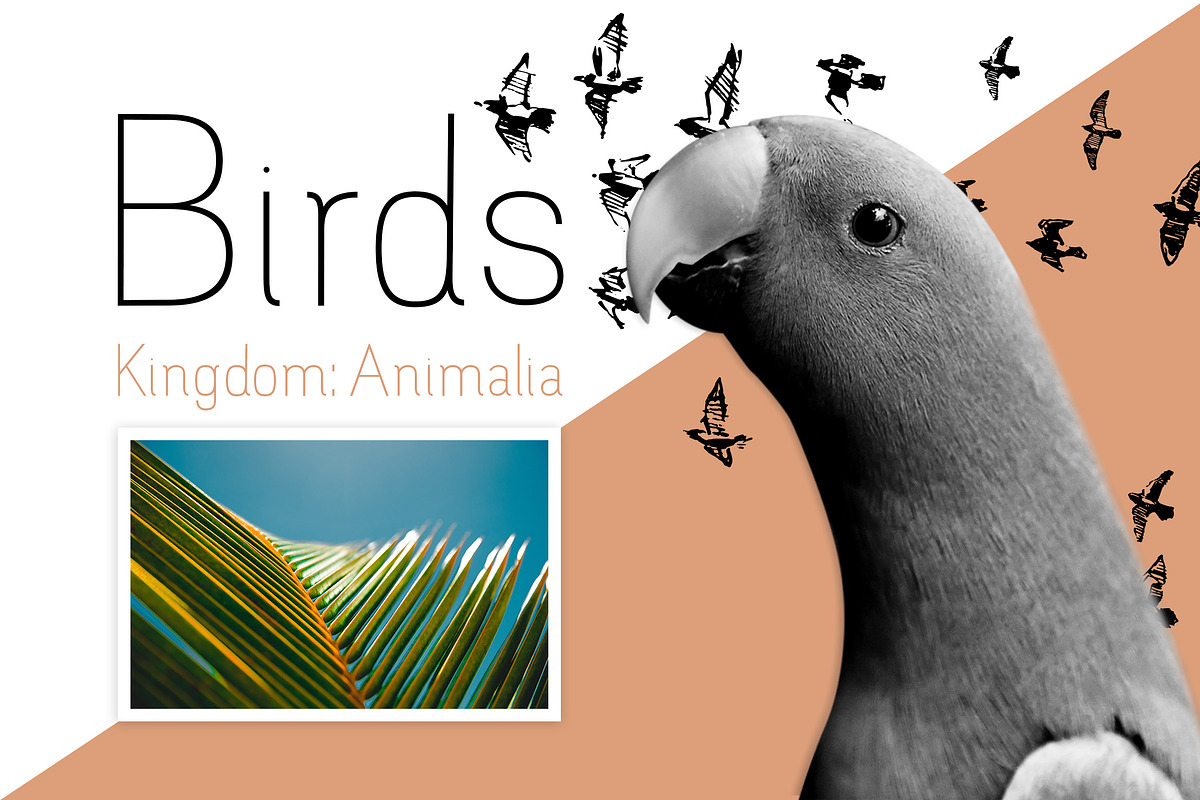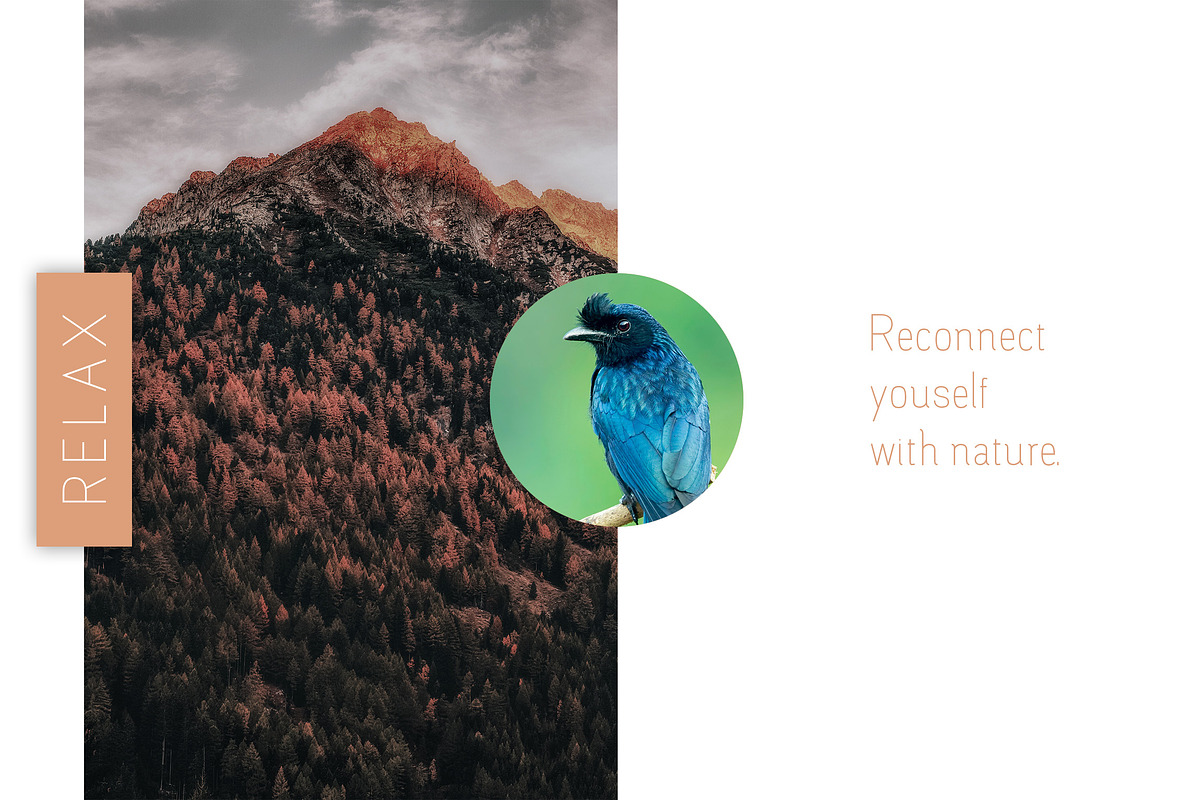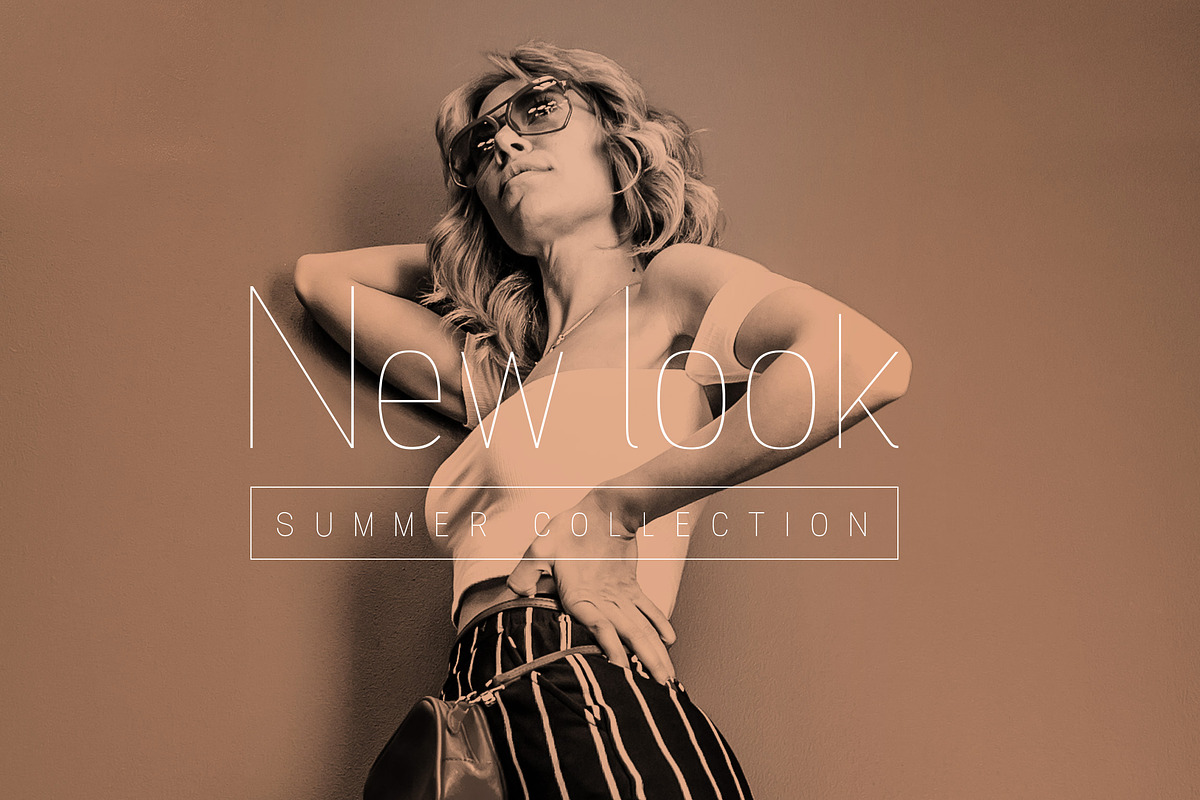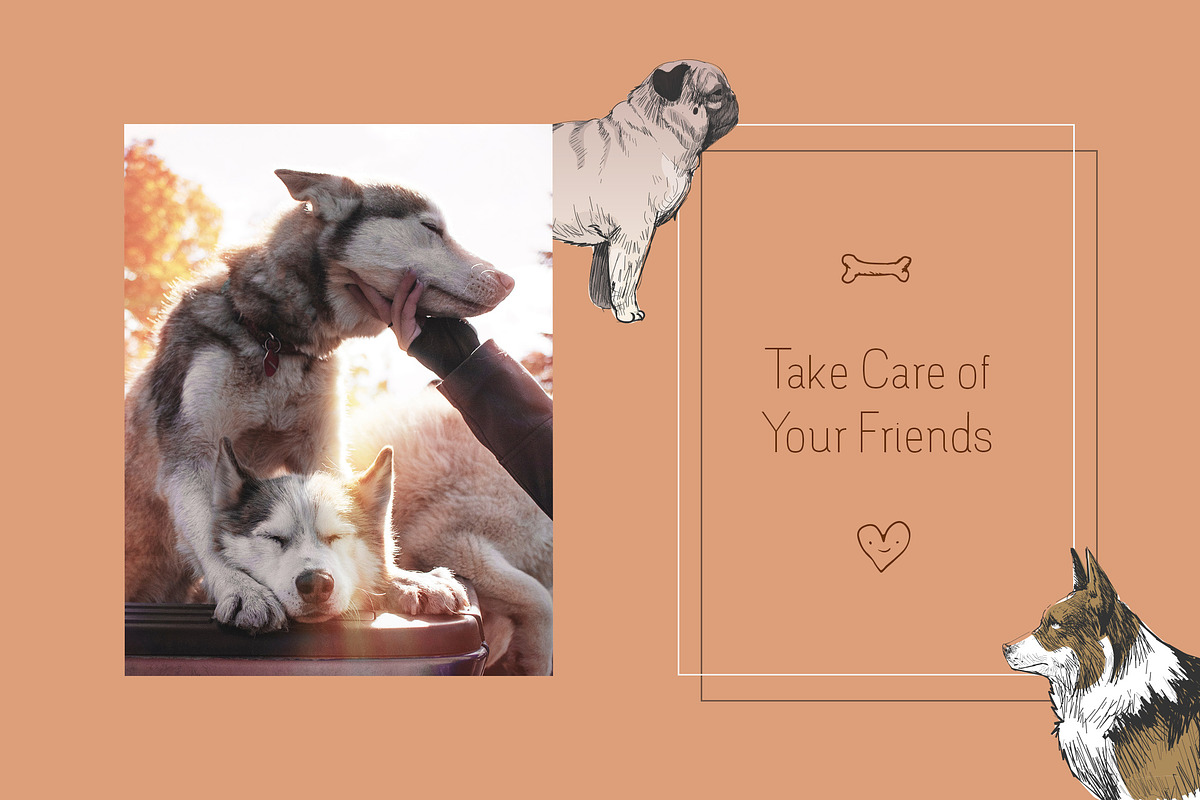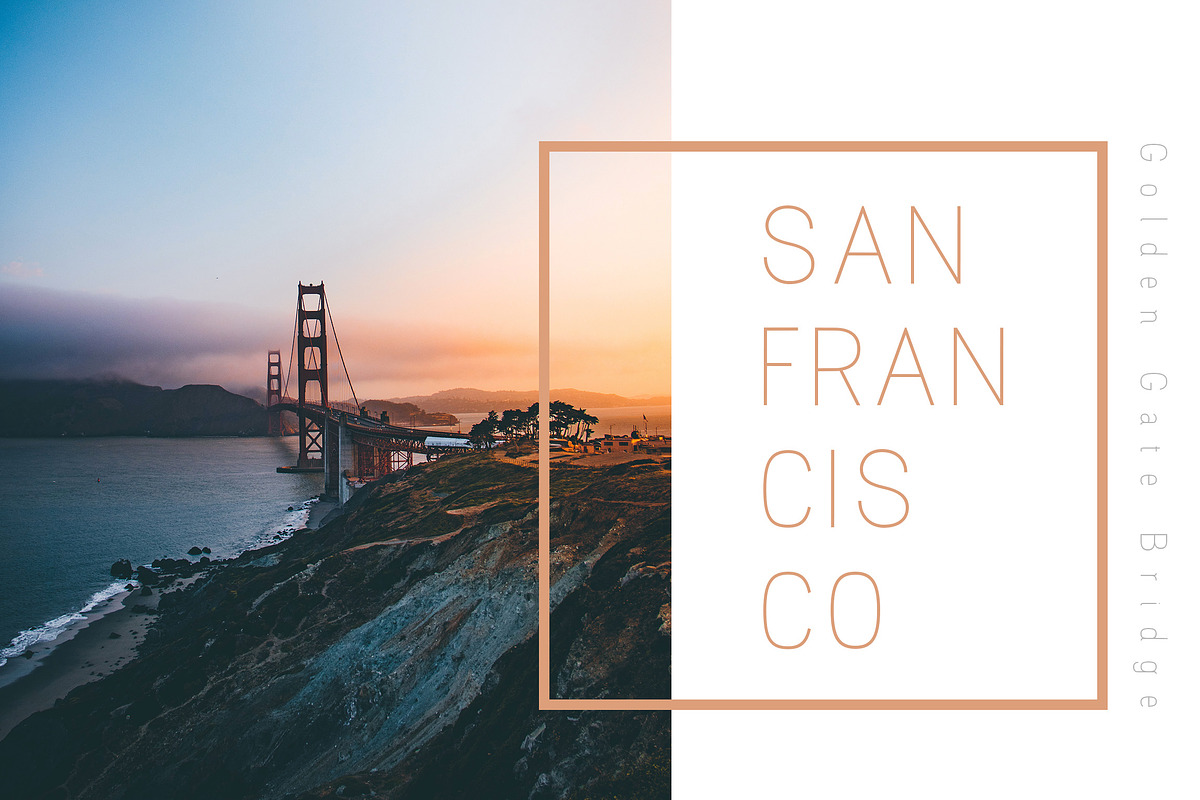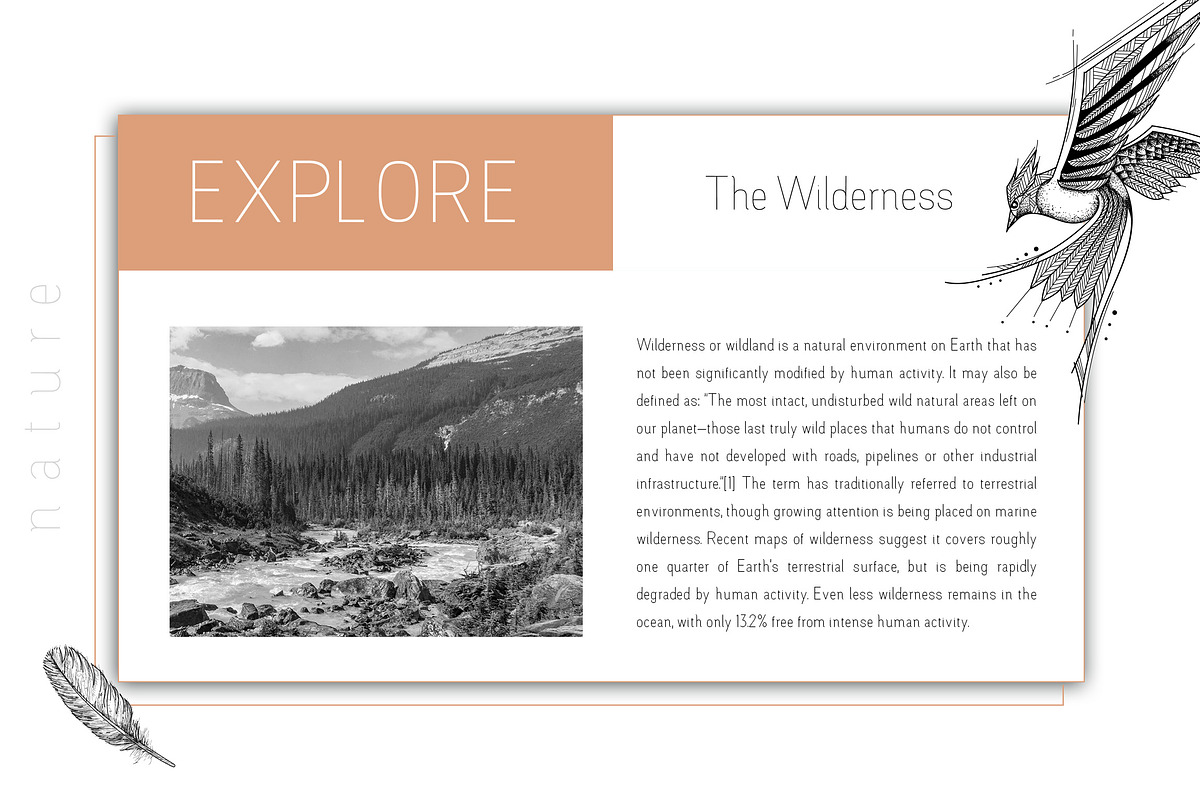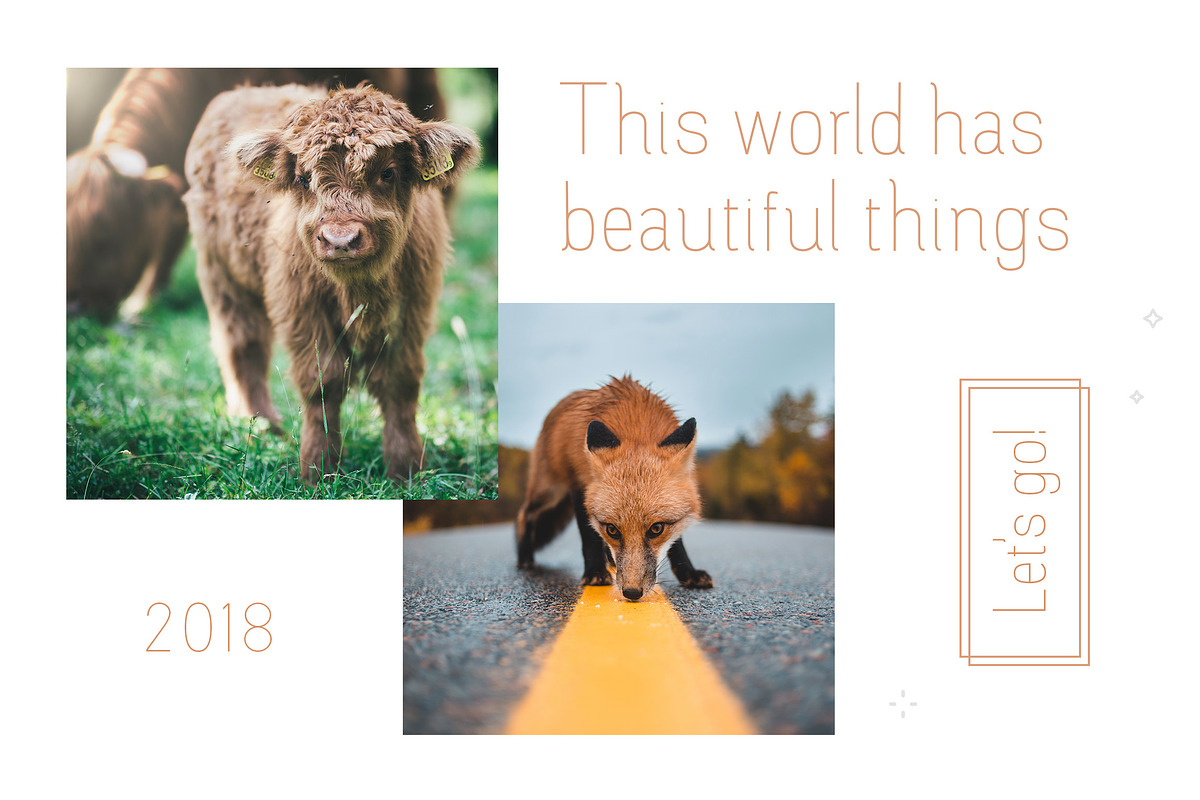
Camilie - Sans Serif Font
Camilie is a 5 weight sans serif thin font perfect for print and web. Designed for clean and harmonious look makes it great for headlines on web, packing, editorial and signage.
5 weights - Ultralight, light, regular, semibold and Bold.